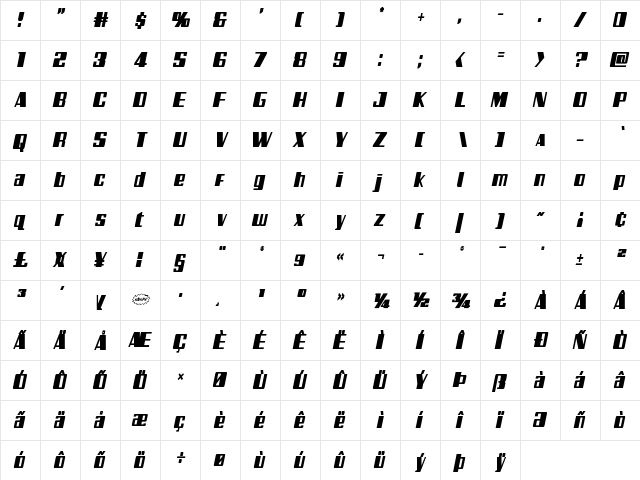
Galactic Storm Condensed Italic Condensed Italic
Design Context for Galactic Storm Condensed Italic Typeface
Galactic Storm Condensed Italic is a composed and adaptable typeface that performs quietly and consistently across a wide range of design contexts. The dynamic lean of this cut emphasises speed and emphasis in any layout. Its narrow stance lets it pack a punch even in space-constrained designs.
Pro Tip: Use Galactic Storm Condensed Italic for emphasis, pull quotes, and subheadings where its slanted energy can add rhythm to the layout.